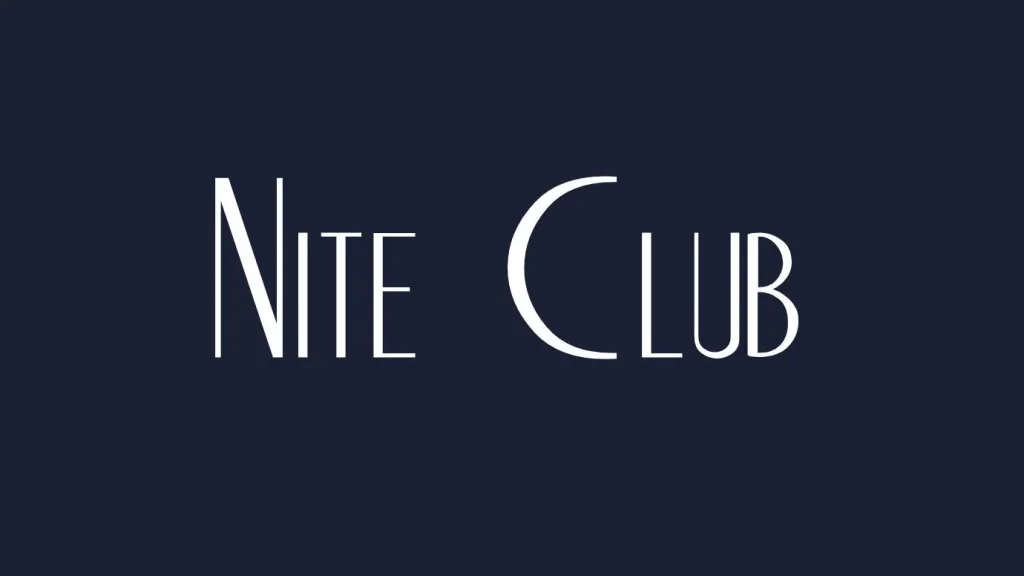
Thomas E. Harvey is the creator behind this nice and elegant text design.
There are numerous other typefaces that can be paired as alternatives to this style. Nite Club Font has so many classic qualities that make it an elegant and perfect character.